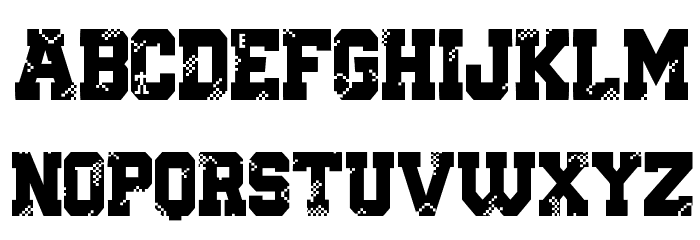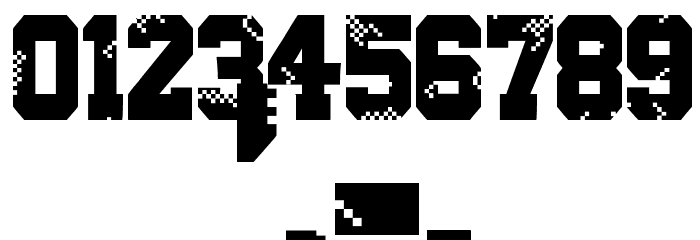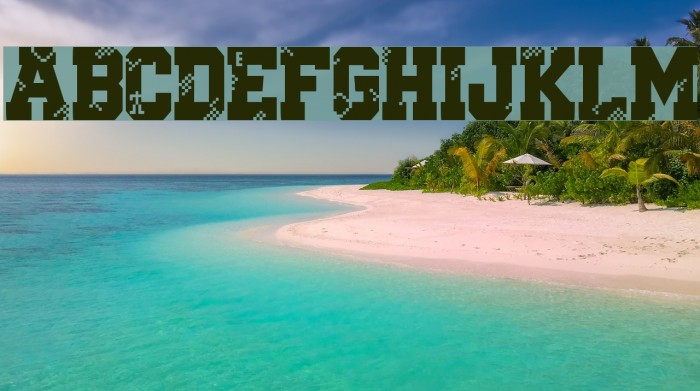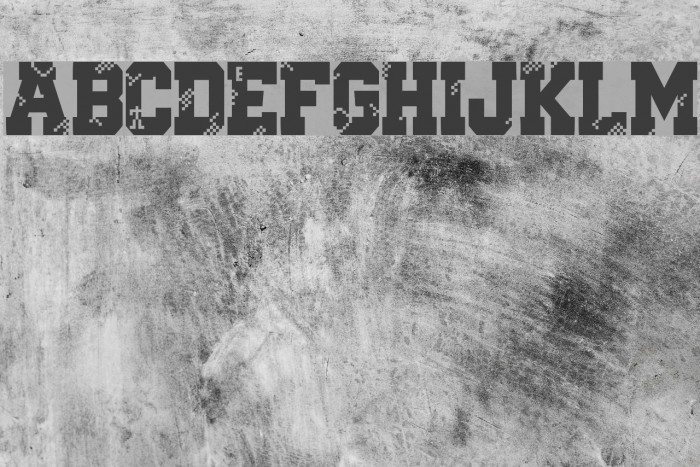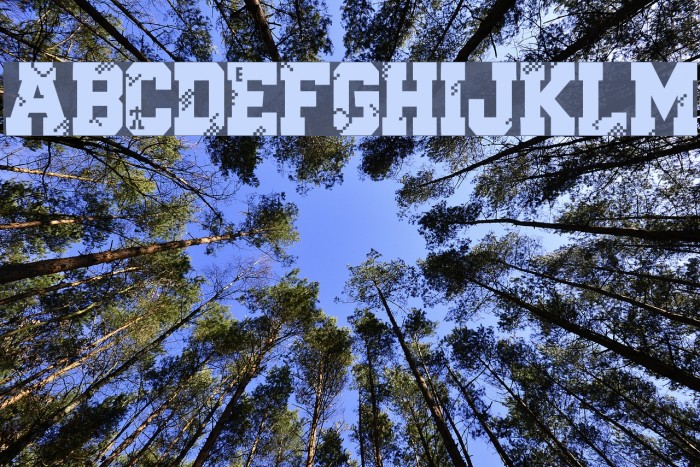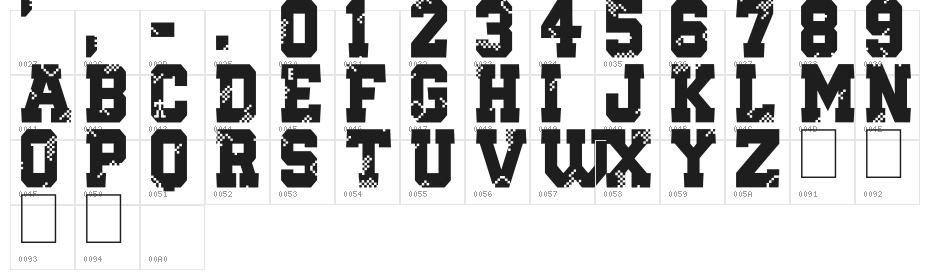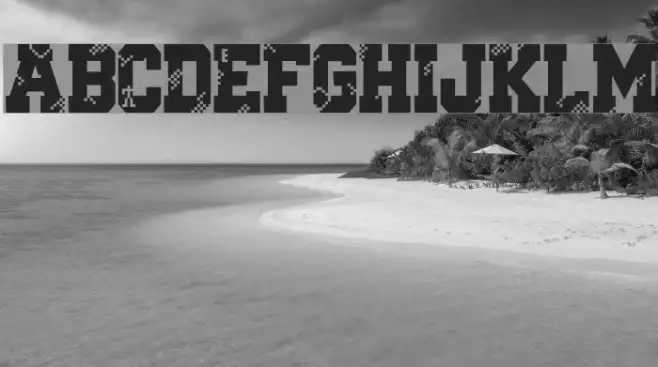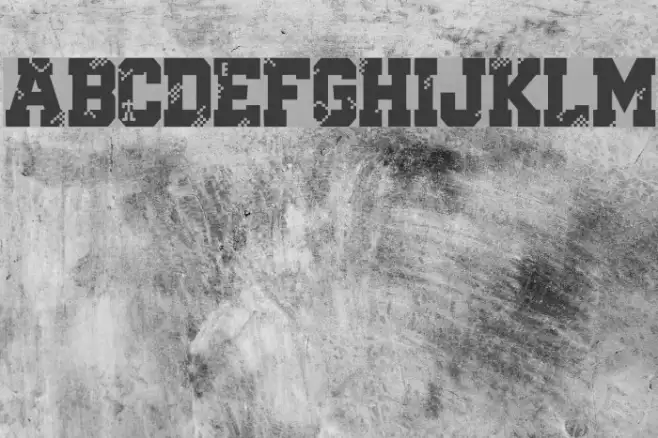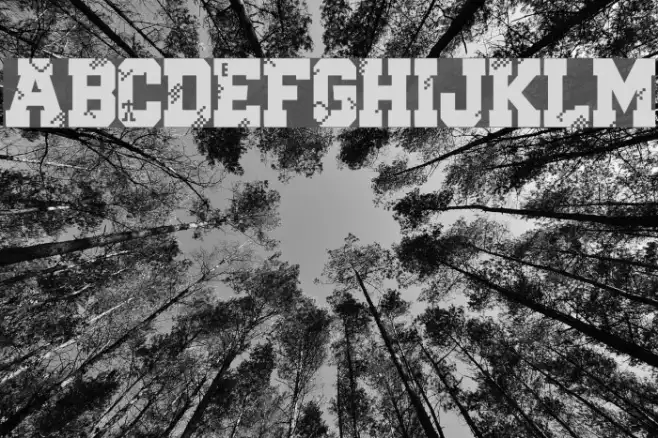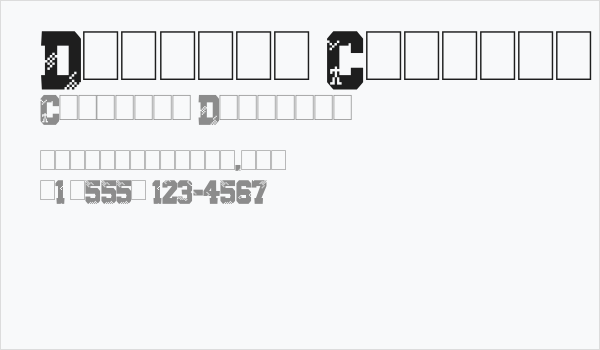
Digital College Font
This font features a bold, blocky design with a digital, pixelated effect that gives it a modern and tech-inspired appearance. The characters are uniformly wide, with sharp edges and a consistent structure that emphasizes a strong, impactful presence. The pixelated detailing adds a unique texture to the font, making it stand out in digital and print media. The uppercase and lowercase letters maintain a cohesive style, while the numerals and special characters are designed to match the overall aesthetic. This font is ideal for projects that require a futuristic or digital theme.
A bold, pixelated font with a modern, tech-inspired design.
- Proposed Projects: Ideal for digital art, tech branding, video game titles, and futuristic-themed posters.
- Use Case: Logos, Headlines, Digital media